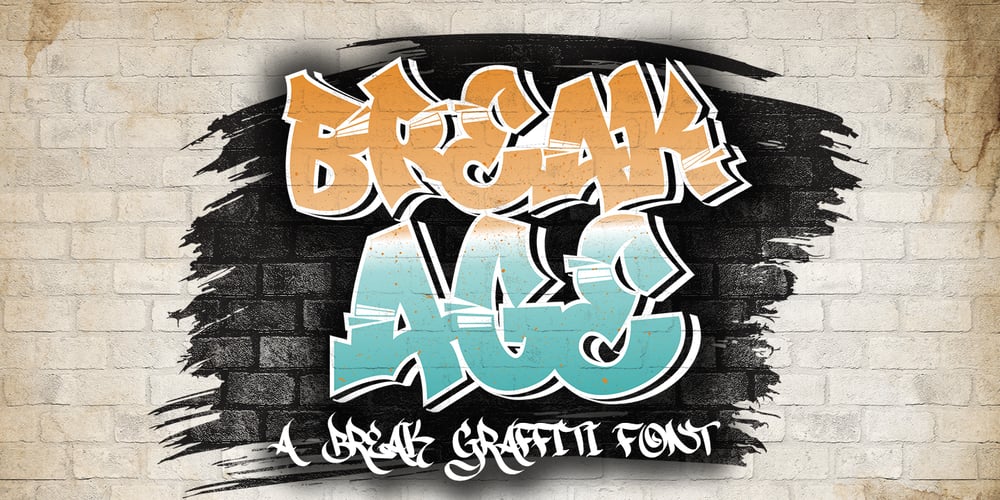
Break Age Graffiti Font Family was designed by Sipanji and published by Sipanji21. Break Age Graffiti contains 1 styles and family package options. Break Age is an awesome display font with a graffiti style and break characters with bandages to make your design look awesome! It will elevate a wide range of design projects to the highest levels, be it branding, headings, wedding designs, invitations, signatures, logotypes, wall art illustrations, apparel, labels, and more!